dot-font: How Type is Being Used Today
Just arrived: “Typography 24: The Annual of the Type Directors Club,” the yearly volume that shows the winners of TDC’s design competition. “Typography 24” is a 320-page hardcover, published by HarperCollins’s imprint Harper Design International, and the design work shown within it was judged last winter in New York by a jury of practicing typographers (see Figure 1).
Figure 1: The jury of TDC49, the TDC typography competition (left to right): Marianne Besch, chair Alex W. White, Mark Geer, Brian Diecks, Nancy Skolos, Rodrigo Corral, Bob Aufuldish, and Guto Lacaz.
There are two competitions, actually: TDC49, the long-established typography competition—that is, where printed and other work is judged for its typography, not just for its art or its graphic beauty—which began in 1953 and is now in its 49th year (this year’s upcoming competition, to be judged later this month, will be the 50th), and the more recently established competition for typeface design, called “TDC2” (that’s a superscript “2,” though it may not appear that way onscreen). The two competitions have separate juries (see Figure 2), but they meet over the same wintry weekend in the same building, and come to their conclusions at the same time.
Figure 2: The jury of TDC2, the TDC type-design competition (left to right): Fiona Ross, Jim Parkinson, Ilene Strizver, chair James Montalbano, and Dave Farey.
The Book and the Competition
The TDC annual is designed by a different designer each year, so within a consistent basic format each volume may look quite different from the ones that came before. This year’s book is handsome and approachable, and it features something not usually seen on the TDC annuals (see Figure 3): a die-cut cover (and consequently no dustjacket). The front cover has a huge “2” cut out of it, and the back cover has a huge “4”; behind them both we can see the playful text of the call for entries, with its repetitions of “no no no no” interspersed with remarks like “nuh-uh” and “gotta be kidding.” In the front of the book, this litany continues from the endpapers to the second spread, where it ends on page iii with the TDC logo and a final, emphatic “YES.” Both the call for entries and the book itself were designed by Alexander Isley Inc.
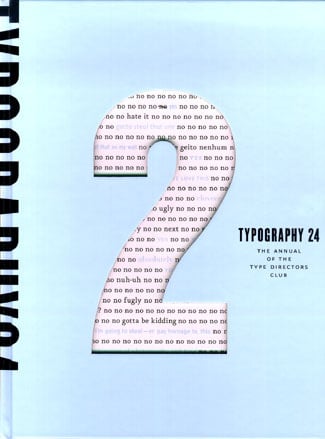
Figure 3: Cover of the Type Directors Club annual, “Typography 24,” is a playful die-cut.
The chairman of the typography competition was Alex W. White, and the chairman of the type-design competition was James Montalbano. Both of them wrote chairman’s statements (see Figure 4). These are always a chore to write, and too often they fall into a litany of truisms. Alex White gets at the heart of the matter when he says: “As you flip through the pages of this book, I encourage you to consider which of these outstanding samples will be fresh 49 years from now, which may become classics to be included in design history texts, and which are more of the moment and will shine brightly but briefly.” We all have opinions about this, but we can’t be sure until some time has passed. (A collection of TDC annuals is an excellent resource for looking back to see what lasted and what didn’t.)
James Montalbano, who was one of the founders of the type-design competition as a separate entity and has seen more than his share of typeface entries, had a few recommendations for people entering their work in such a competition: Vary the layout of the sample, if you’re submitting more than one typeface; be sure to show enough of the typeface so it can be judged fairly, in all its variations and—most importantly—in use; and let the judges see the typeface at the sizes it was intended to be used. (Having chaired a TDC2 competition myself once, I can attest that all of James’s suggestions are right on target.)
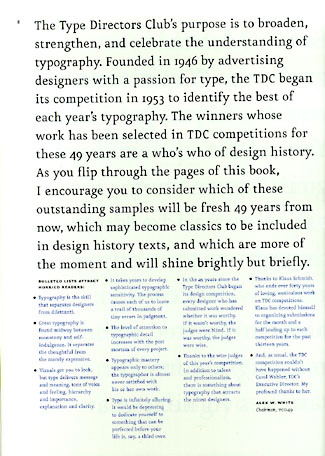
Figure 4: Last page of Alex White’s chairman’s statement for TDC49.
Presenting Design
Each year, the winning entries appear in two different formats: in the annual, and in the TDC traveling exhibit, which usually has its debut in New York City in June. Since I organized the setting up of last year’s exhibit at the ATypI conference in Vancouver, I’ve seen these examples now both in their original form and in print in the annual.
While nothing beats seeing books and posters and magazine spreads in the flesh, so to speak, there’s a lot to be said for the convenience of having their images in a book that you can browse and keep. As far as I can tell, without having done an exhaustive study of every page of the book, this year’s annual has worked out any bugs and glitches in the handling of digital images supplied by the winners; everything looks sharp and well-presented. And the page design does a good job of presenting the images and their ancillary information clearly and simply (see Figure 5); unlike some design annuals I’ve seen, the design here does not get in the way.
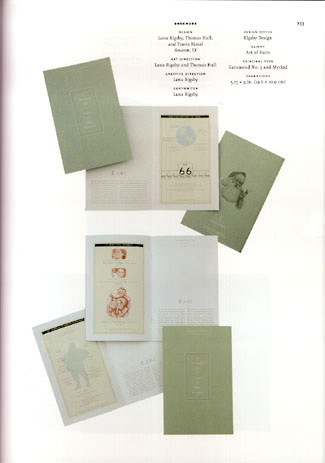
Figure 5: The annual sports simple, clean presentation of images and textual information about the winning designs.
The Shape of Things
Trends? Hard to say. Lots of wiry shapes and rough-hewn or hand-drawn imagery. Lots of flat colors, or four-color renderings of flat colors. Some intriguing mixtures of digital type and letterpress printing. Much clutter, but also a welcome amount of simplicity and clarity (see Figure 6). Lots and lots of exuberance and inventiveness.
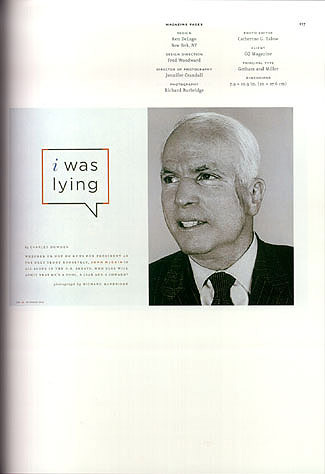
Figure 6: Bold simplicity and directness in a magazine layout.
In the type-design competition, it’s noteworthy that several of the winners were non-Latin faces: two Arabic and one Hebrew (see Figure 7). And one, Victor Gaultney’s Gentium, is a combination extended-Latin and Greek font that includes the characters needed to set a number of African languages that have greatly expanded from the standard Latin alphabet.